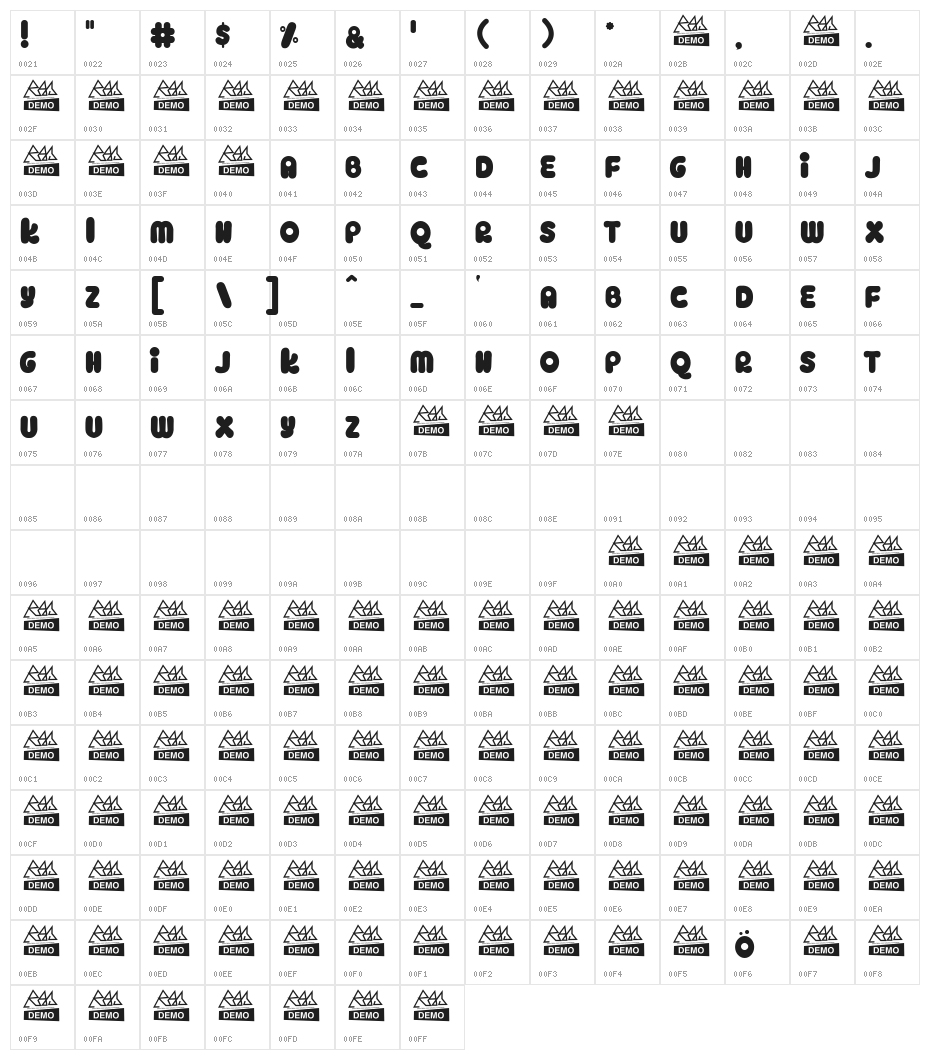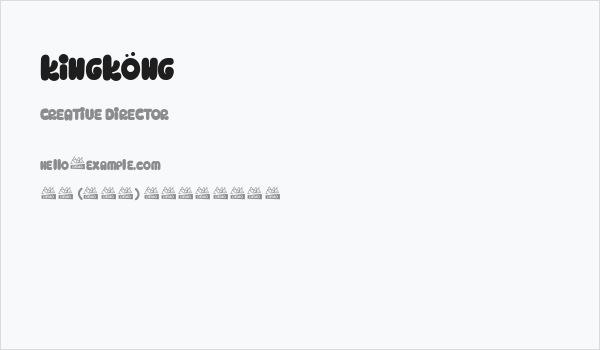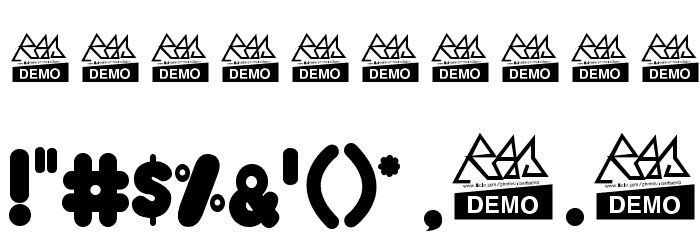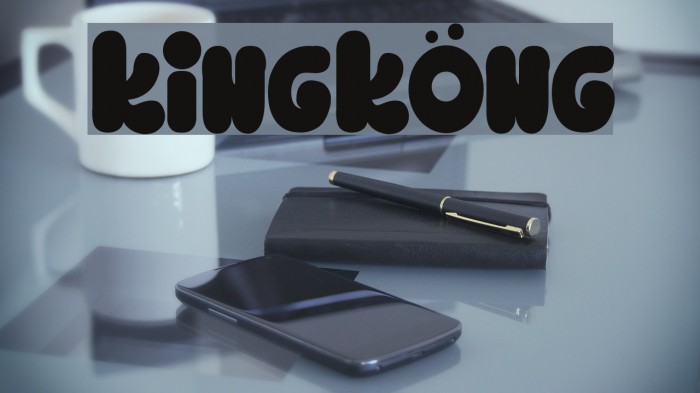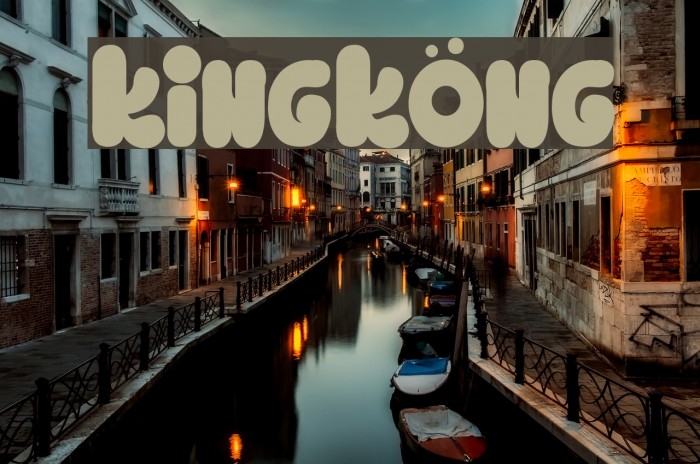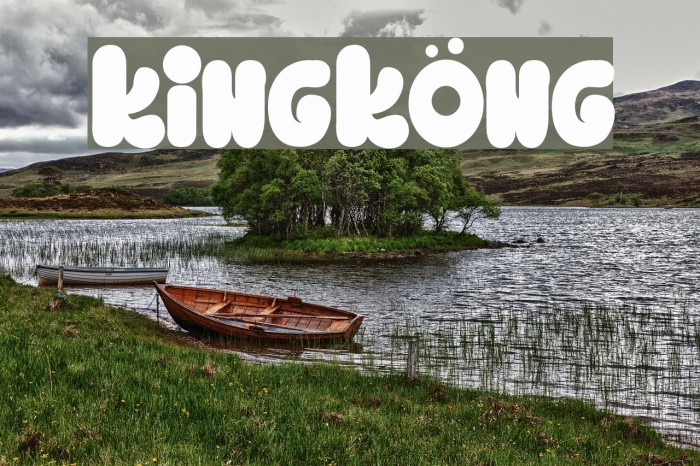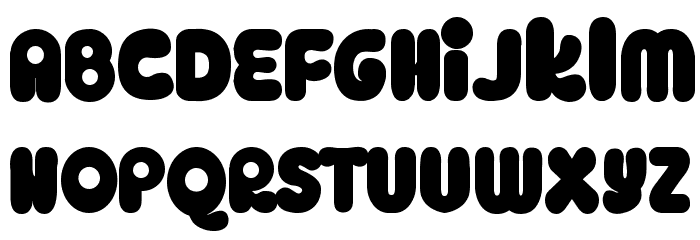
Kingköng Font
Kingköng Description
This font features a bold and playful design with rounded, bubble-like characters. Each letter is crafted with thick strokes, creating a sense of fullness and vibrancy. The style is consistent across uppercase and lowercase letters, as well as numbers and special characters. The font's unique appearance makes it stand out, with a modern and fun aesthetic that is perfect for creative projects. The rounded edges and uniform thickness give it a friendly and approachable look, making it suitable for a variety of applications where a bold statement is needed.
| Proposed Projects | Ideal for children's books, playful branding, posters, and creative digital content. |